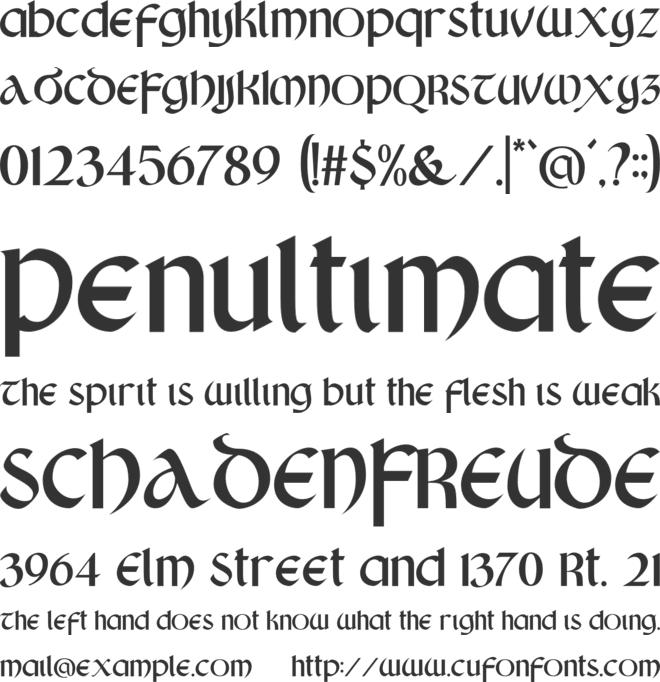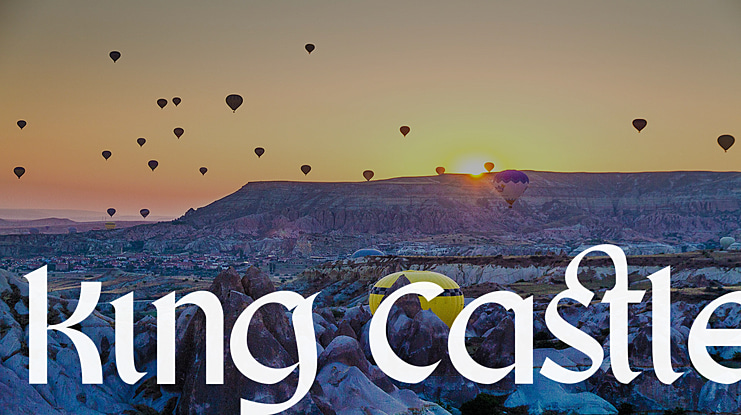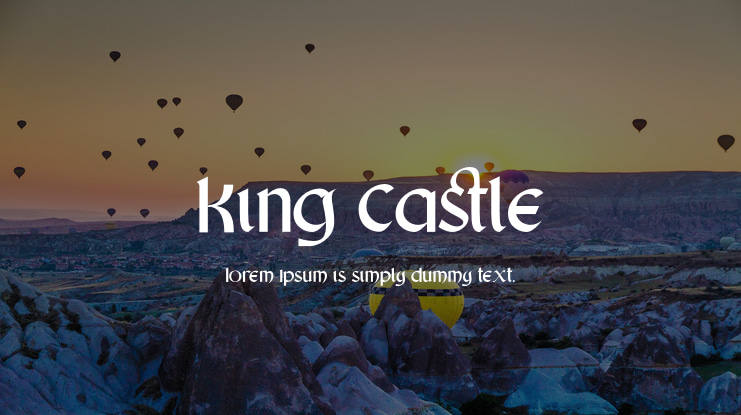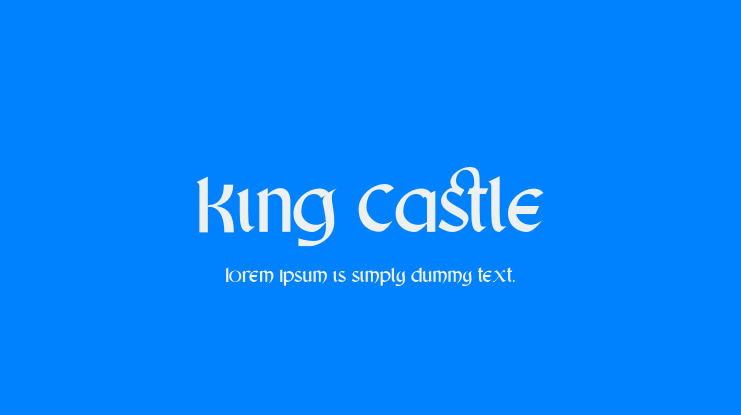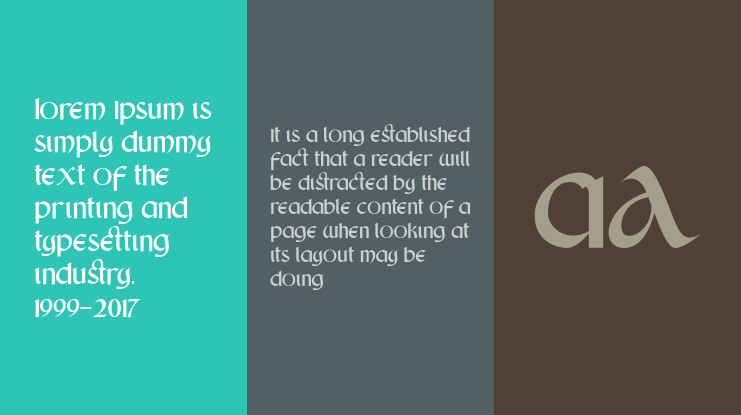
King Castle Font
An elegant Celtic style font,.This unique display typeface is inspired by celtic styles.The original look will appeal to a wide range of crafty ideas, from letterheads and titles, to stationery.Full Version Download Here :https://typefactory.co/product/king-castle-celtic-typeface/https://www.creativefabrica.com/product/king-castle/ref/501262/